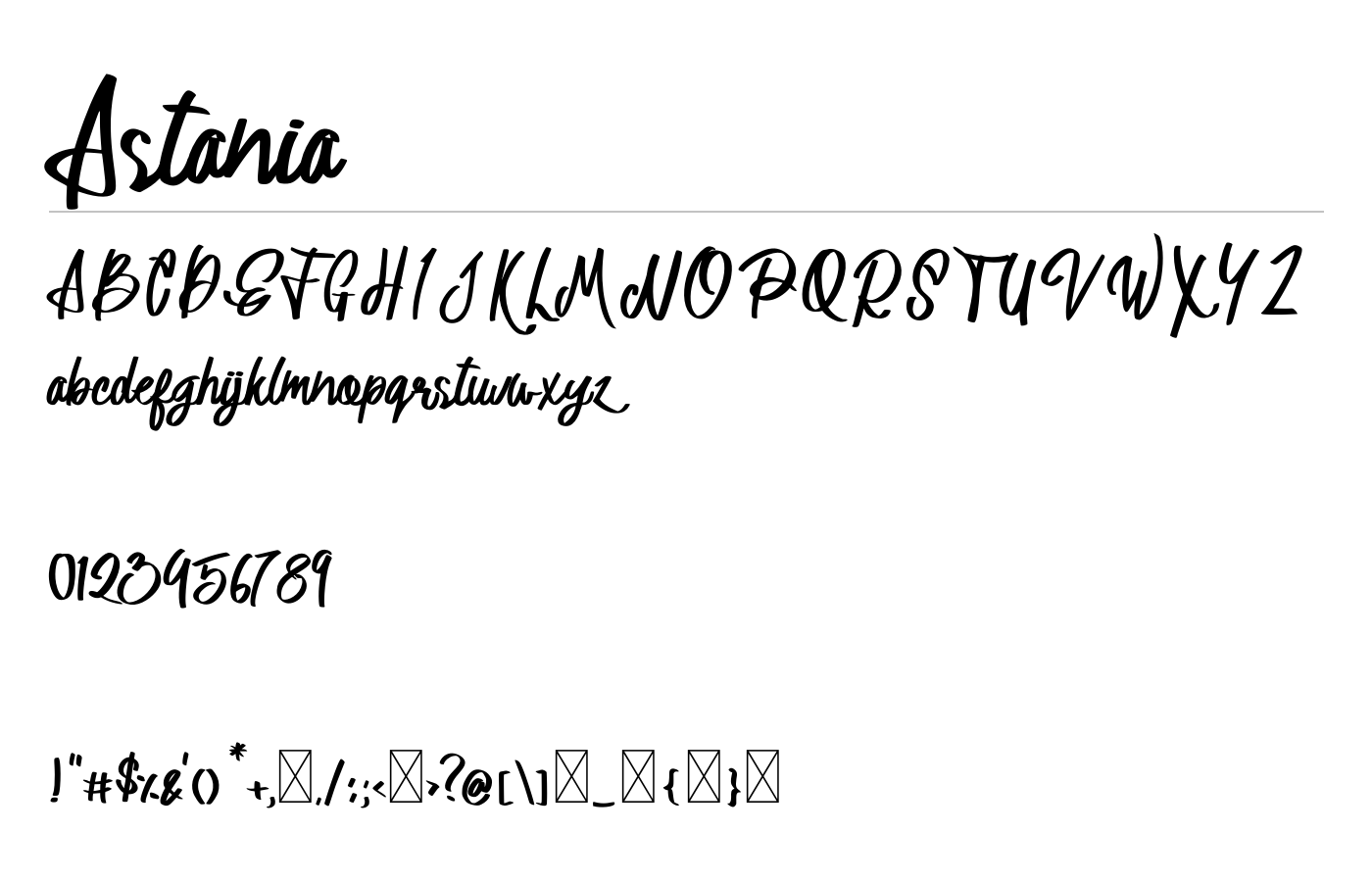
Astania is a lively and elegant script font characterized by its smooth, flowing strokes and moderate contrast, giving it a handwritten charm with a modern flair. Its slightly condensed letterforms and casual style make it perfect for adding a personal, creative touch to branding, invitations, and stylish headlines. This font works beautifully where a friendly yet sophisticated feel is desired, such as in fashion, lifestyle, and creative projects.
Astania Font
About Astania Font
| Designer | Khusnun Irawan |